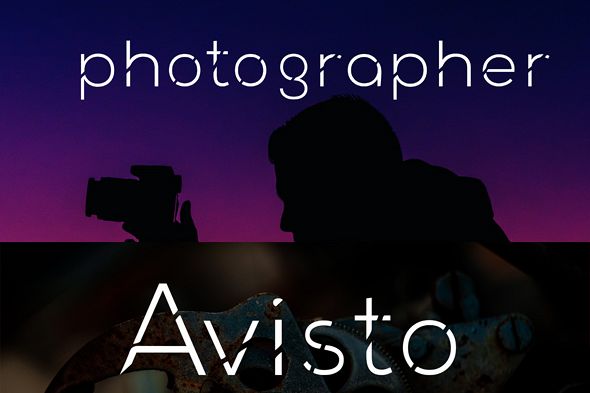
avisto font
avisto-Regular
a minimalis typeface and awesome character with  different style, avisto light and avisto twin. avisto it’s perfect for namecard, poster, logo, magazine, cover, banner, tshirt and headers, or even large-scale artwork.